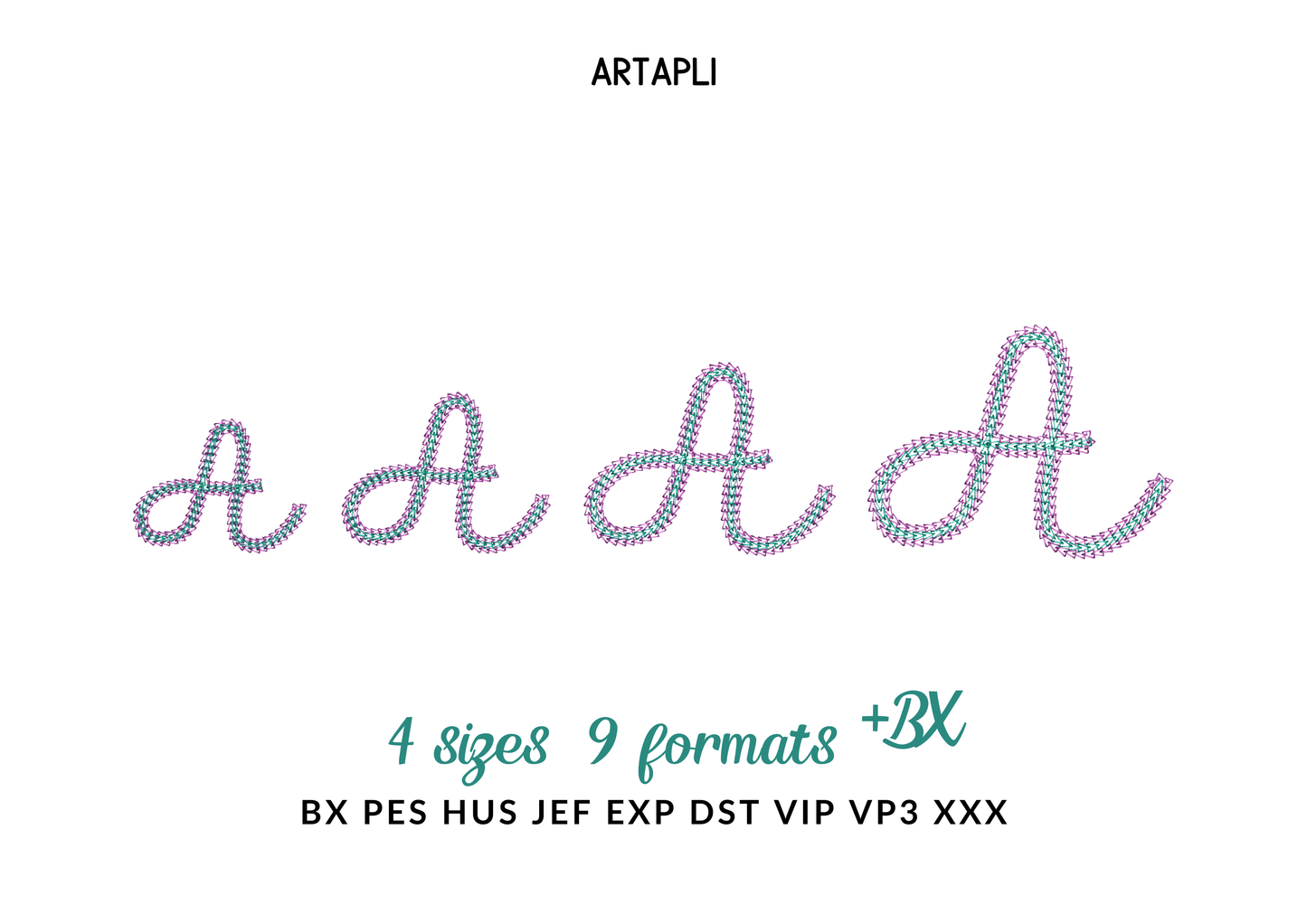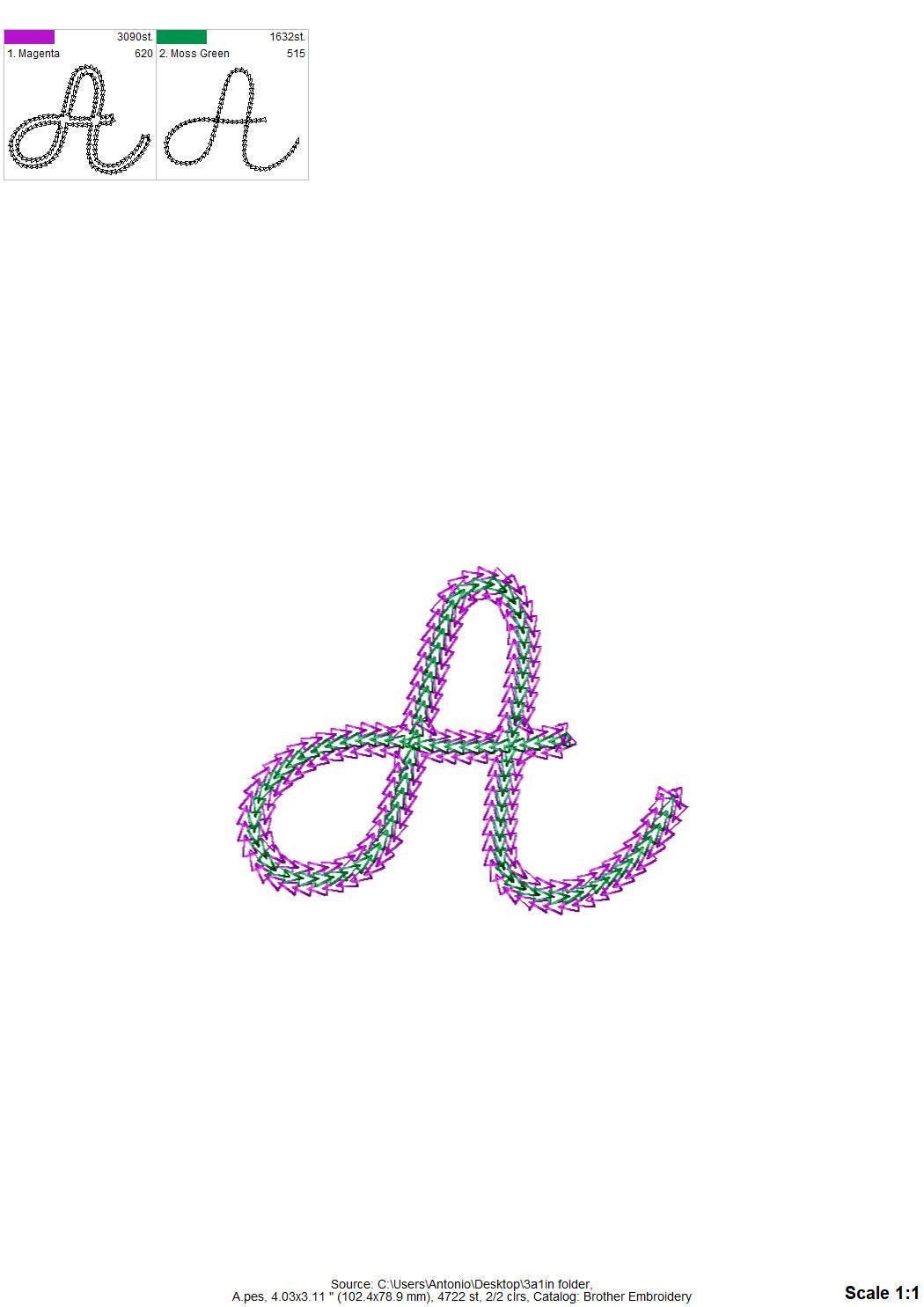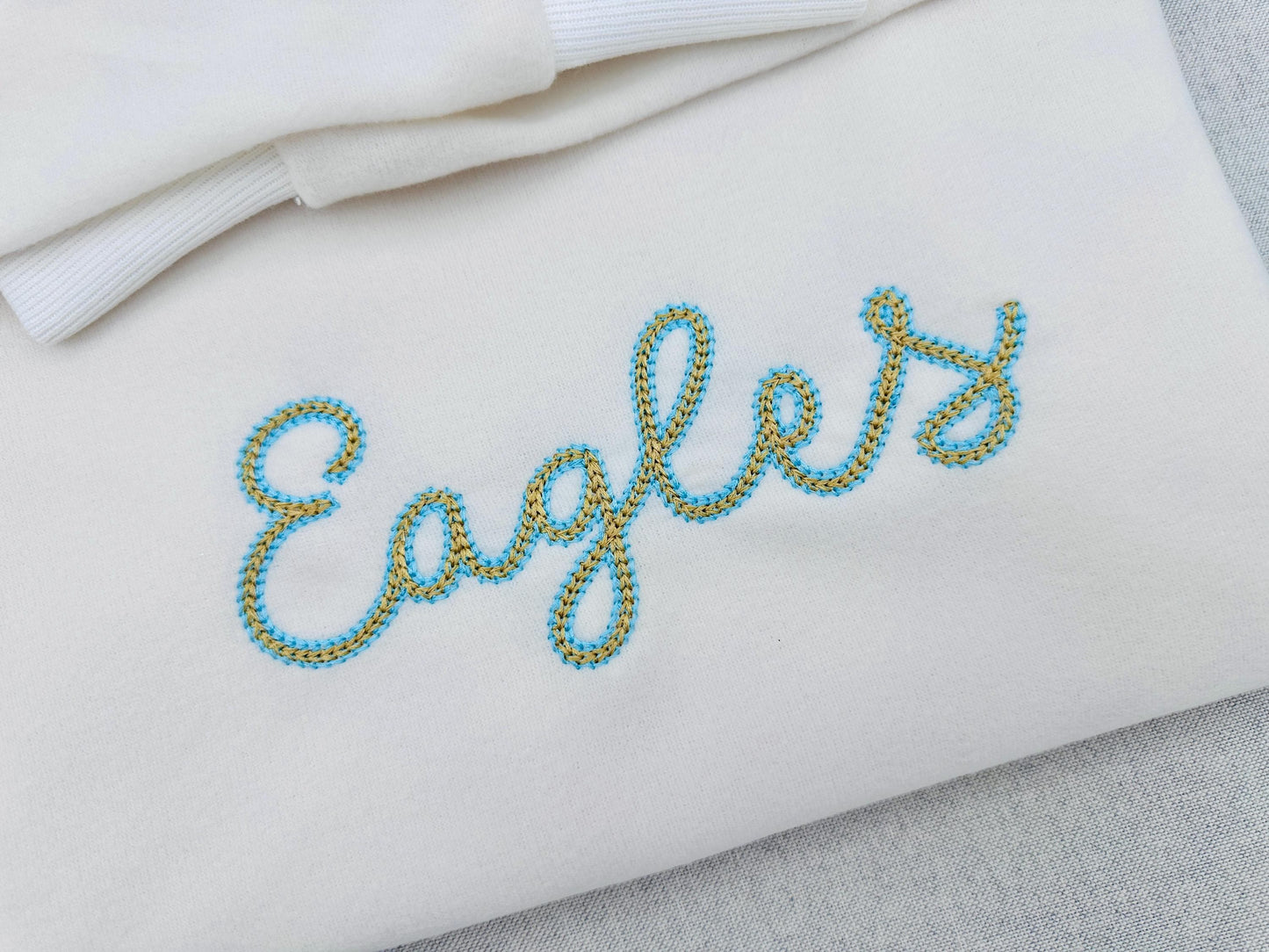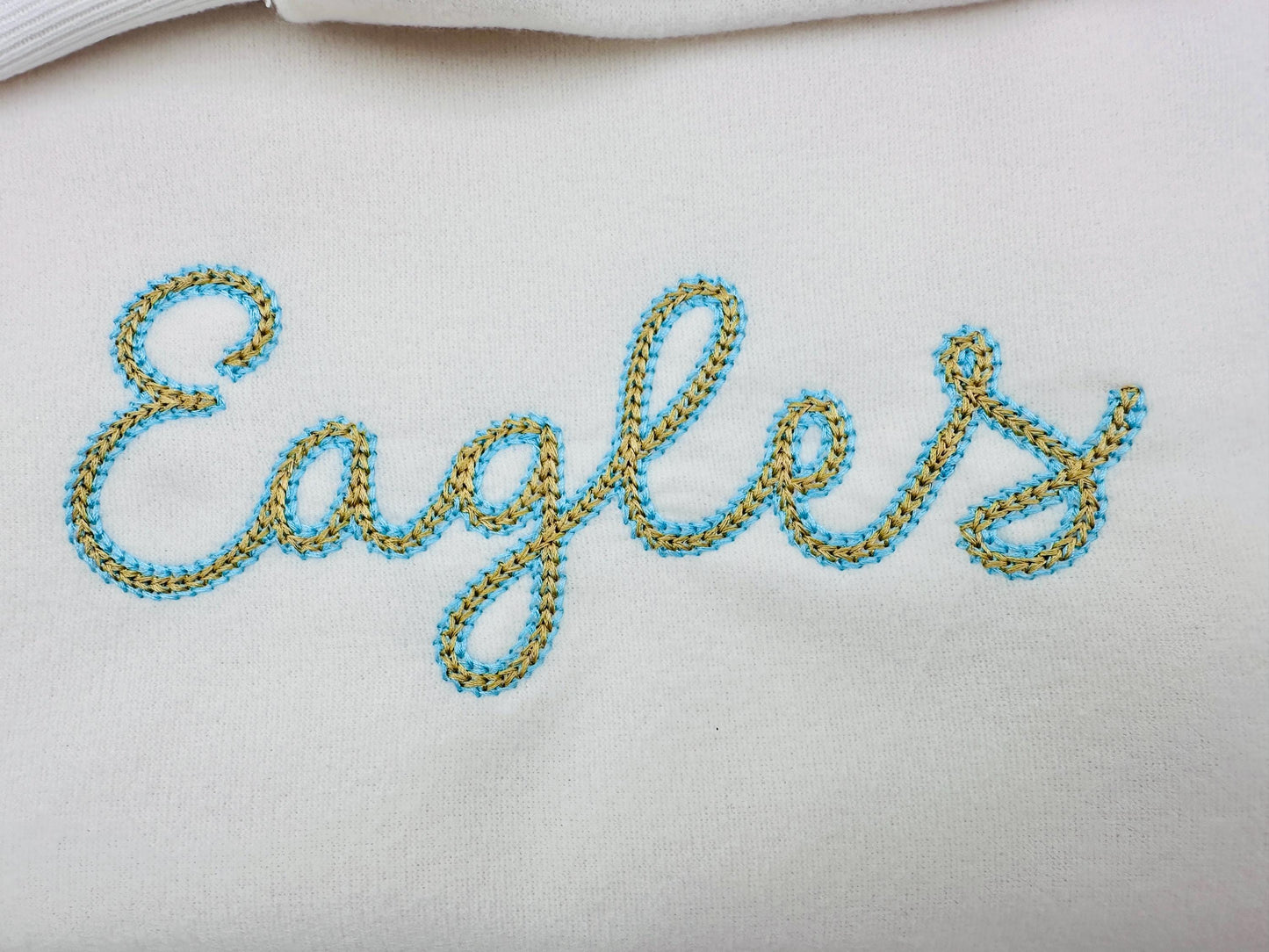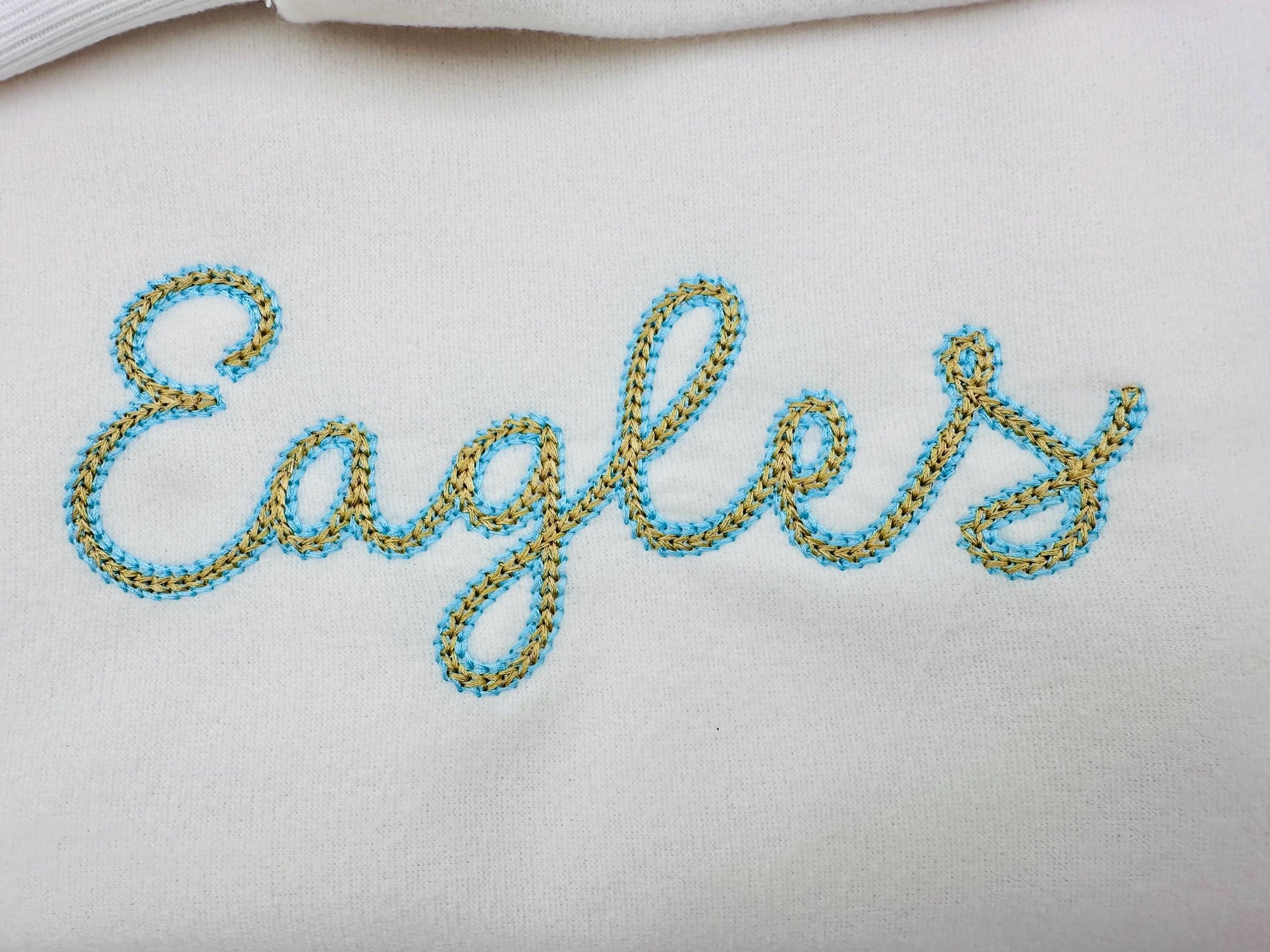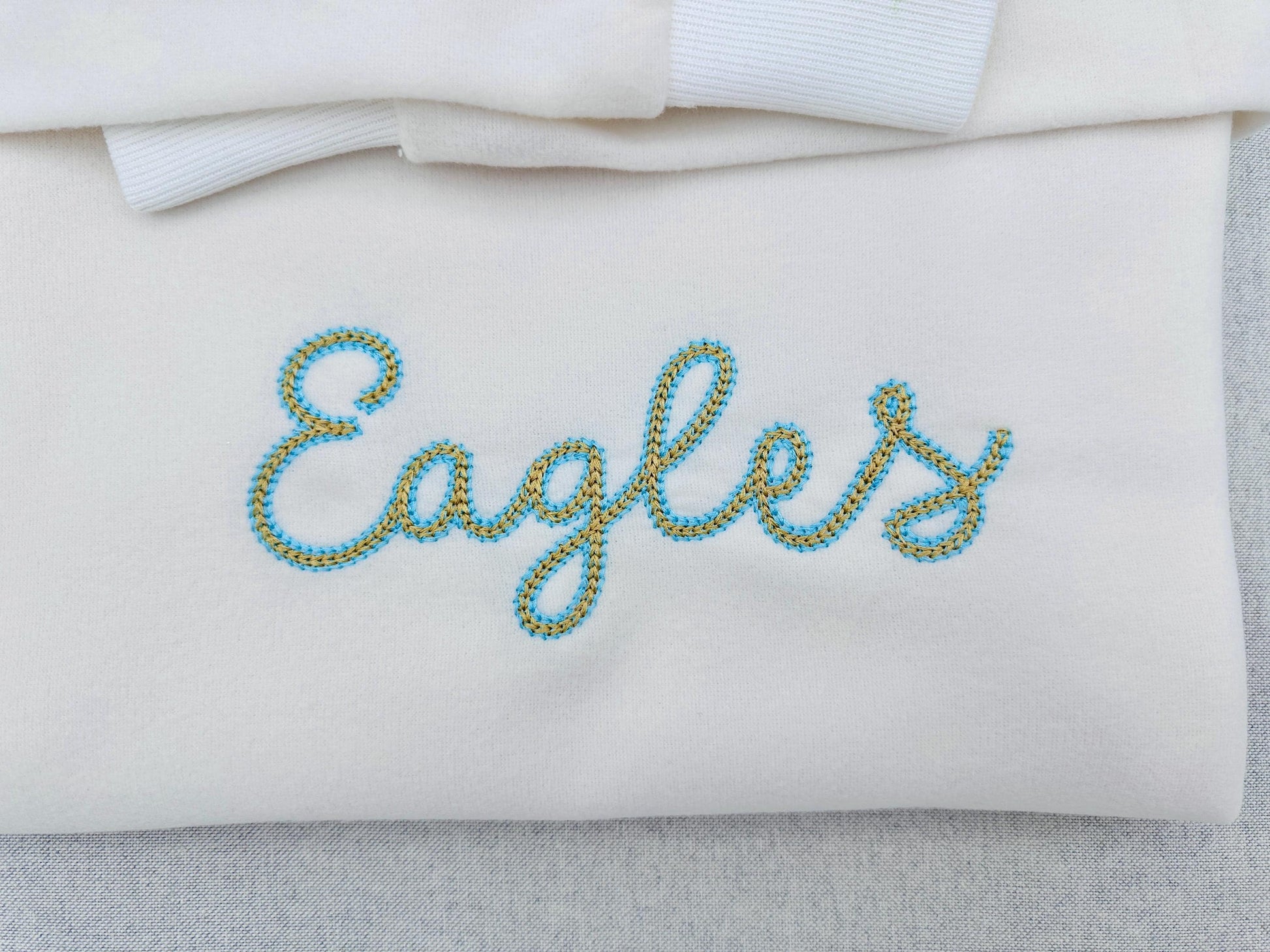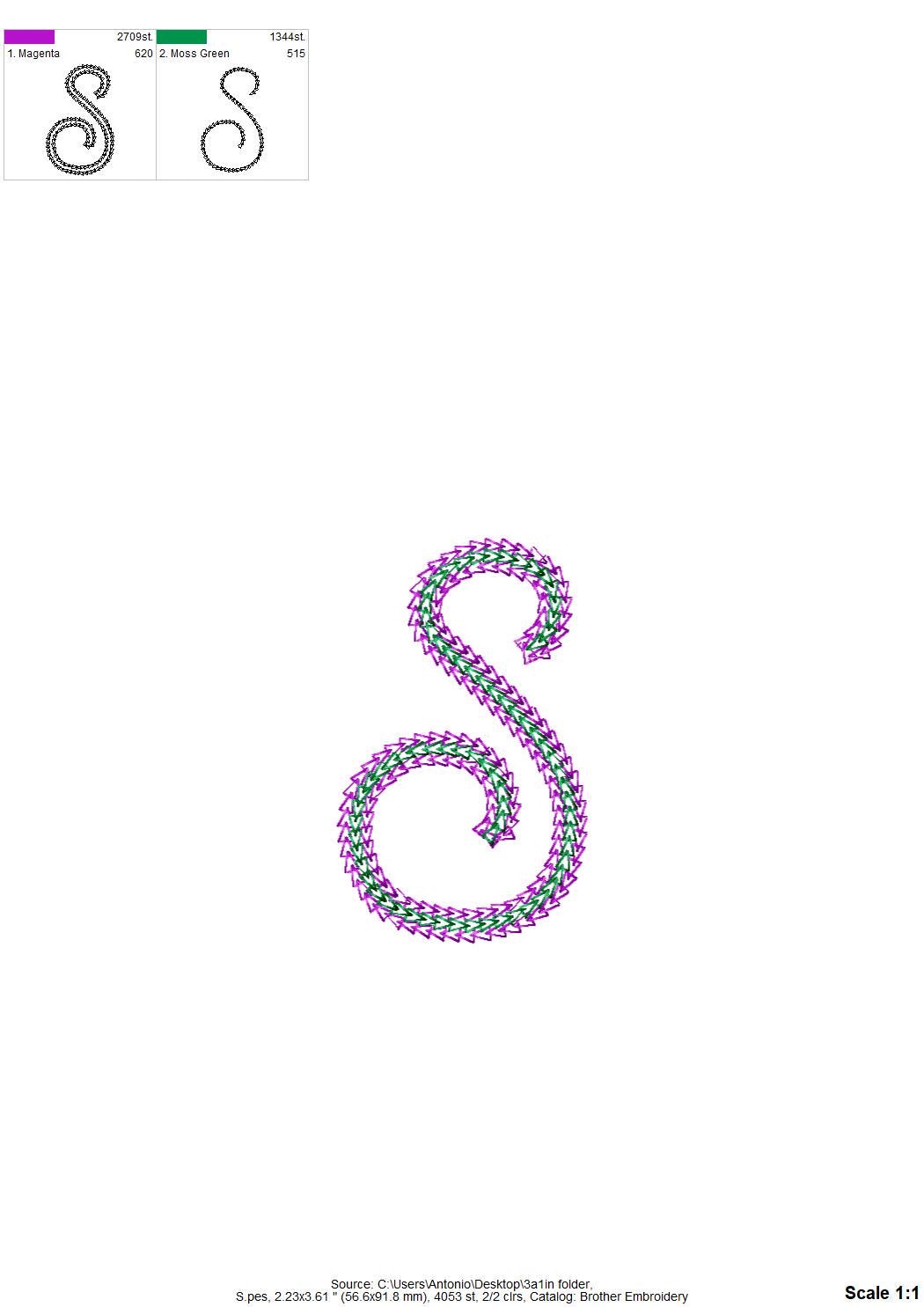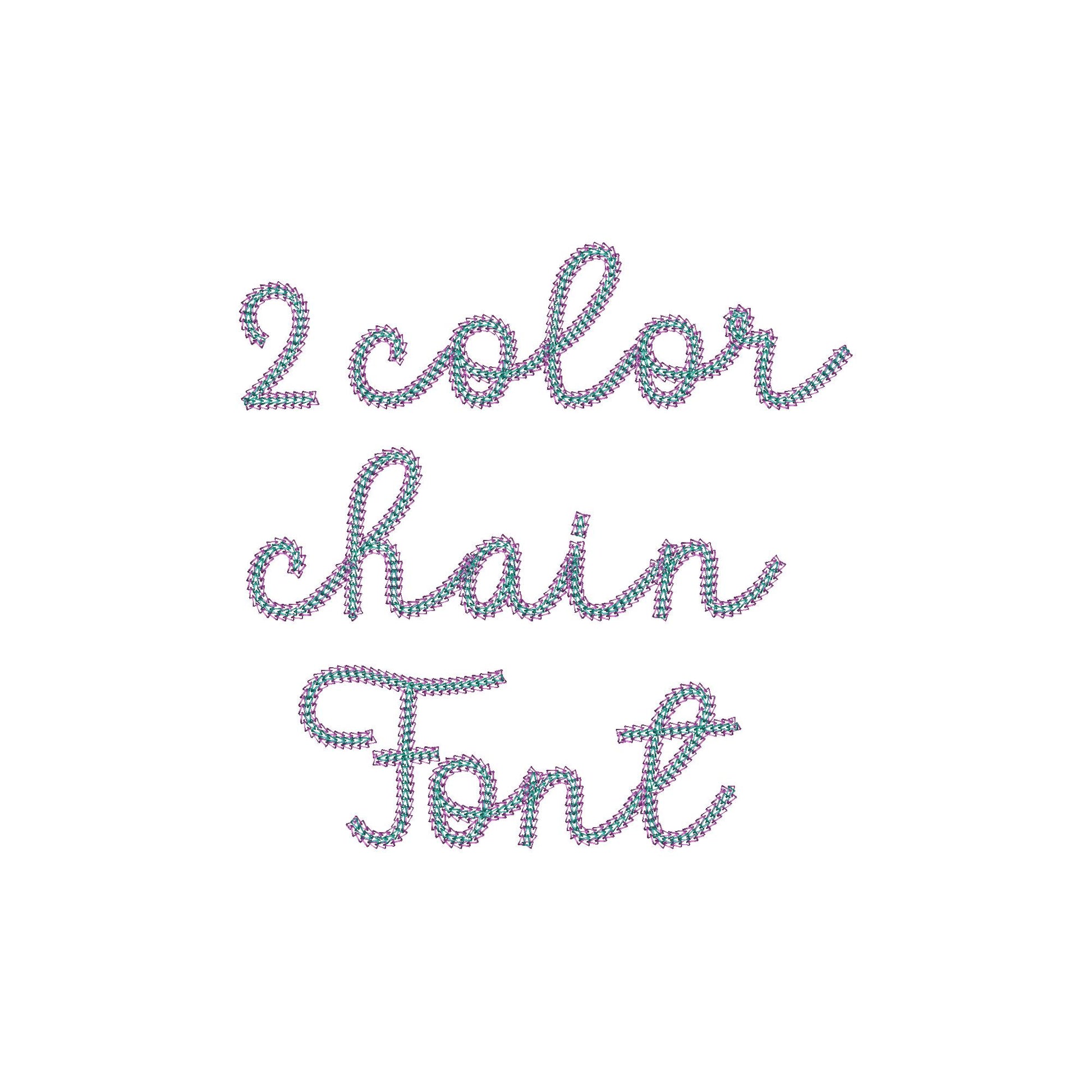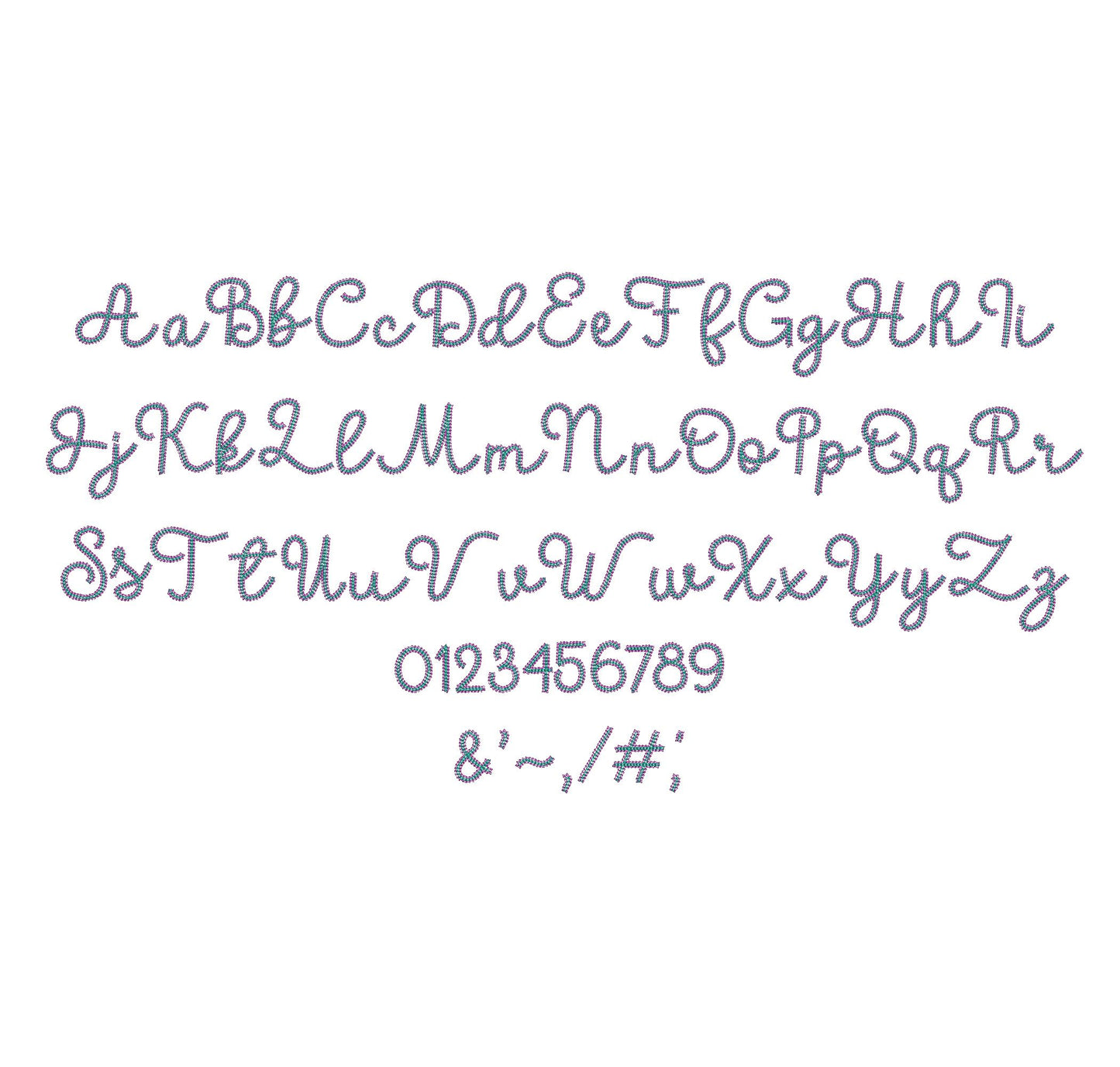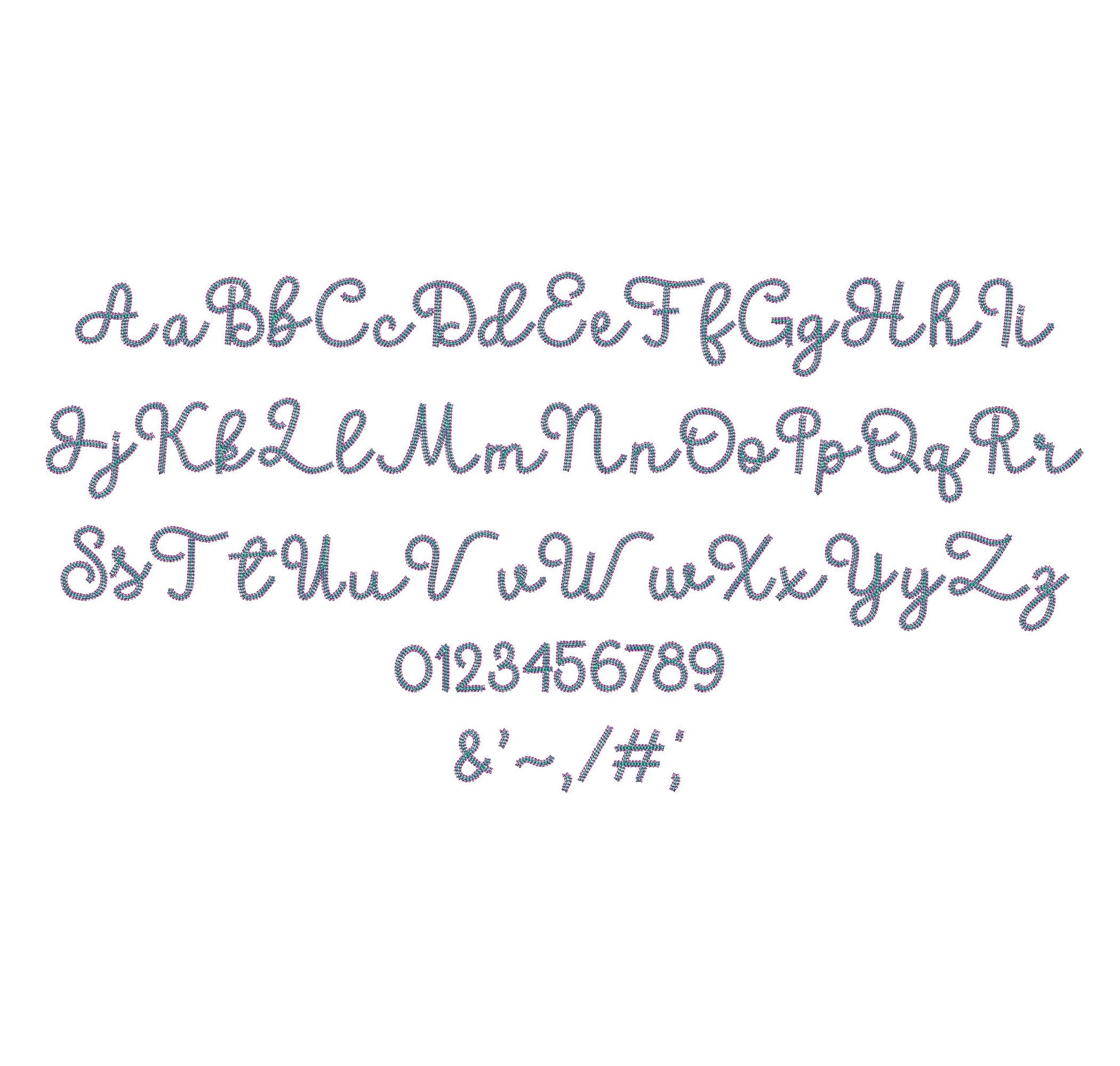
Or click to open the linkA two-color handwritten font in a light chain stitch. Pretty for names, monograms and sweaters.
The letters come in four sizes: 2.2, 2.6, 3.1 and 3.7 inches. Each letter is stitched in two colors with a light chain stitch and outline. Includes uppercase and lowercase letters A to Z, numbers 0 to 9 and punctuation.